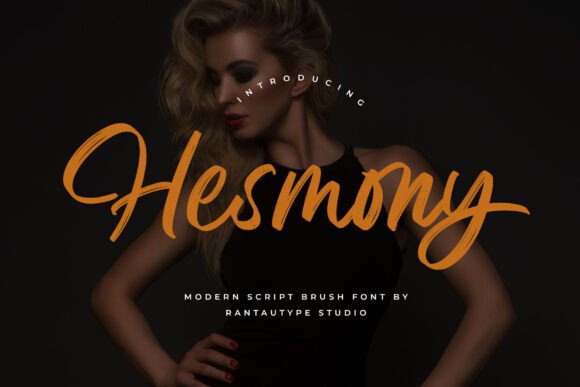
Hesmony Font: Elevate Your Design Projects with a Classy and Elegant Touch
In the world of typography, fonts play a crucial role in conveying the tone and personality of a design project. Among the numerous font styles available, brush script fonts have gained immense popularity for their unique and artistic appeal. One such font that has been making waves in the design community is Hesmony, a modern brush script font that exudes class and elegance. In this article, we’ll dive into the world of Hesmony font, exploring its features, benefits, and uses, as well as provide tips on how to make the most of this beautiful font.
What is Hesmony Font?
Hesmony is a modern brush script font designed to bring a touch of sophistication and elegance to your design projects. With its beautiful brush strokes, Hesmony is perfect for creative endeavors that require a handwritten touch, such as logos, advertisements, photography watermarks, stationery, branding projects, displays, magazines, invitations, corporate branding, product designs, labels, and more.
Benefits of Using Hesmony Font
So, what makes Hesmony font a popular choice among designers? Here are some benefits of using Hesmony font in your design projects:
- Unique and Artistic Appeal: Hesmony’s brush script style gives your designs a distinctive and artistic look that sets them apart from others.
- Elegant and Classy: The font’s elegant and classy appearance makes it perfect for high-end designs, such as luxury branding, advertisements, and editorial projects.
- Versatile: Hesmony font can be used for a wide range of design projects, from logos and branding to stationery and product designs.
- Easy to Read: Despite its artistic style, Hesmony font is easy to read, making it suitable for body text and headlines.
How to Use Hesmony Font in Your Design Projects
Now that we’ve explored the benefits of Hesmony font, let’s discuss how to use it effectively in your design projects. Here are some tips:
- Pair it with Neutral Backgrounds: Hesmony font looks stunning on neutral backgrounds, such as white, beige, or light gray. This allows the font to take center stage and make a statement.
- Use it for Headlines and Titles: Hesmony’s elegant and artistic style makes it perfect for headlines and titles. Use it to add a touch of sophistication to your designs.
- Experiment with Colors: Hesmony font comes in a range of colors, so don’t be afraid to experiment and find the perfect hue for your design project.
- Mix and Match with Other Fonts: Hesmony font can be paired with other fonts to create a unique and visually appealing design. Experiment with different font combinations to find the perfect match.
Design Projects that Can Benefit from Hesmony Font
Hesmony font is versatile and can be used for a wide range of design projects. Here are some examples:
- Logos and Branding: Hesmony font is perfect for logos and branding projects that require a touch of elegance and sophistication.
- Advertisements: Use Hesmony font to add a touch of class to your advertisements, whether they’re print or digital.
- Photography Watermarks: Hesmony font is a great choice for photography watermarks, adding a touch of elegance to your images.
- Stationery: Use Hesmony font to create beautiful stationery, such as business cards, letterheads, and envelopes.
- Product Designs: Hesmony font can be used for product designs, such as labels, packaging, and product inserts.
Hesmony Font Style and Characteristics
Hesmony font is a modern brush script font with a range of characteristics that make it unique and elegant. Here are some of its key features:
- Brush Script Style: Hesmony font features a beautiful brush script style, with flowing strokes and artistic flair.
- Elegant and Classy: The font’s elegant and classy appearance makes it perfect for high-end designs.
- Legible: Despite its artistic style, Hesmony font is easy to read, making it suitable for body text and headlines.
- Scalable: Hesmony font is scalable, making it perfect for use in a range of design projects, from business cards to billboards.
Tips and Tricks for Getting the Most out of Hesmony Font
Here are some tips and tricks for getting the most out of Hesmony font:
- Use it Sparingly: Use Hesmony font sparingly to make a statement. Overusing the font can make your design look cluttered and overwhelming.
- Experiment with Colors and Textures: Experiment with different colors and textures to add depth and interest to your design.
- Pair it with Images: Pair Hesmony font with images to create a visually appealing design. Use the font to add context and meaning to your images.
- Consider the Context: Consider the context in which your design will be used. Hesmony font may be perfect for a luxury brand, but not for a more playful or casual brand.
In conclusion, Hesmony font is a beautiful and elegant brush script font that can elevate your design projects to the next level. With its unique and artistic appeal, Hesmony font is perfect for creative endeavors that require a handwritten touch. By following the tips and tricks outlined in this article, you can get the most out of Hesmony font and create stunning designs that leave a lasting impression.